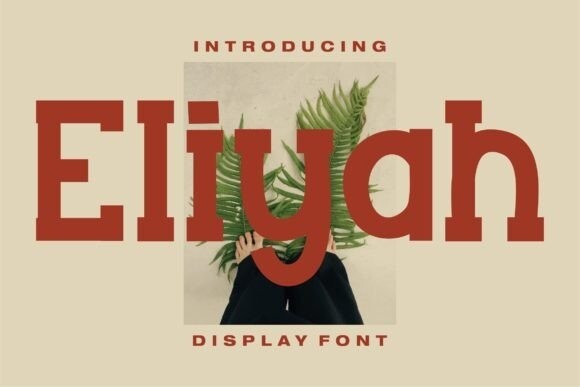
Eliyah Font
Eliyah is a bold serif font with a modern style. It will look so beautiful on invitations like greeting cards, branding materials, business cards, quotes, posters, and more!